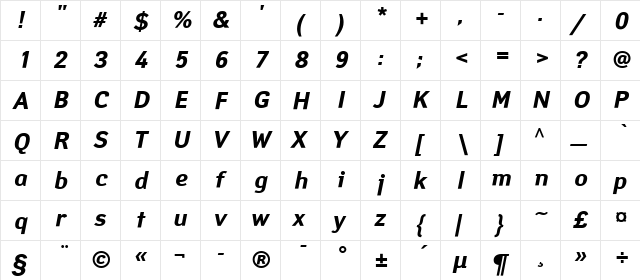
YanusC Bold Italic
Design Context for YanusC Typeface
YanusC is a composed and adaptable typeface that performs quietly and consistently across a wide range of design contexts. The slanted form adds forward momentum and visual energy. The heavy weight commands attention and anchors typographic hierarchies.
Pro Tip: Use YanusC for emphasis, pull quotes, and subheadings where its slanted energy can add rhythm to the layout.